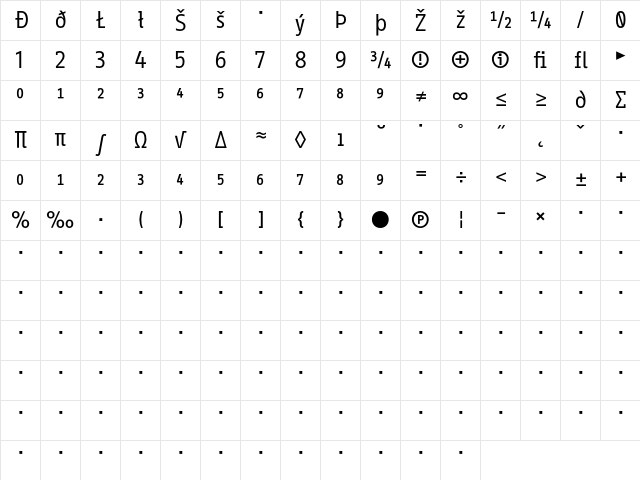
InfoOffice RegularExpert
Style: RegularExpert
Complete InfoOffice RegularExpert glyph index. Displaying only characters natively supported by InfoOffice RegularExpert font.
Design Context for InfoOffice
InfoOffice is a composed and adaptable typeface that performs quietly and consistently across a wide range of design contexts.